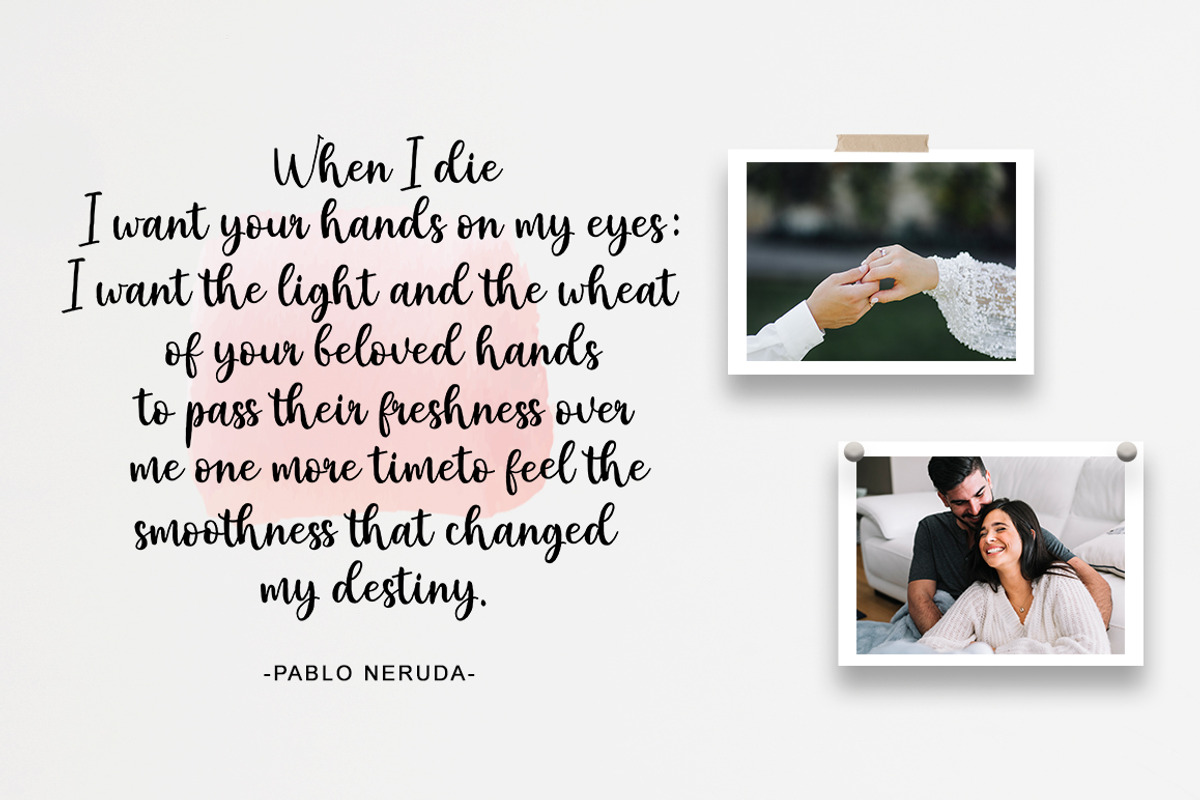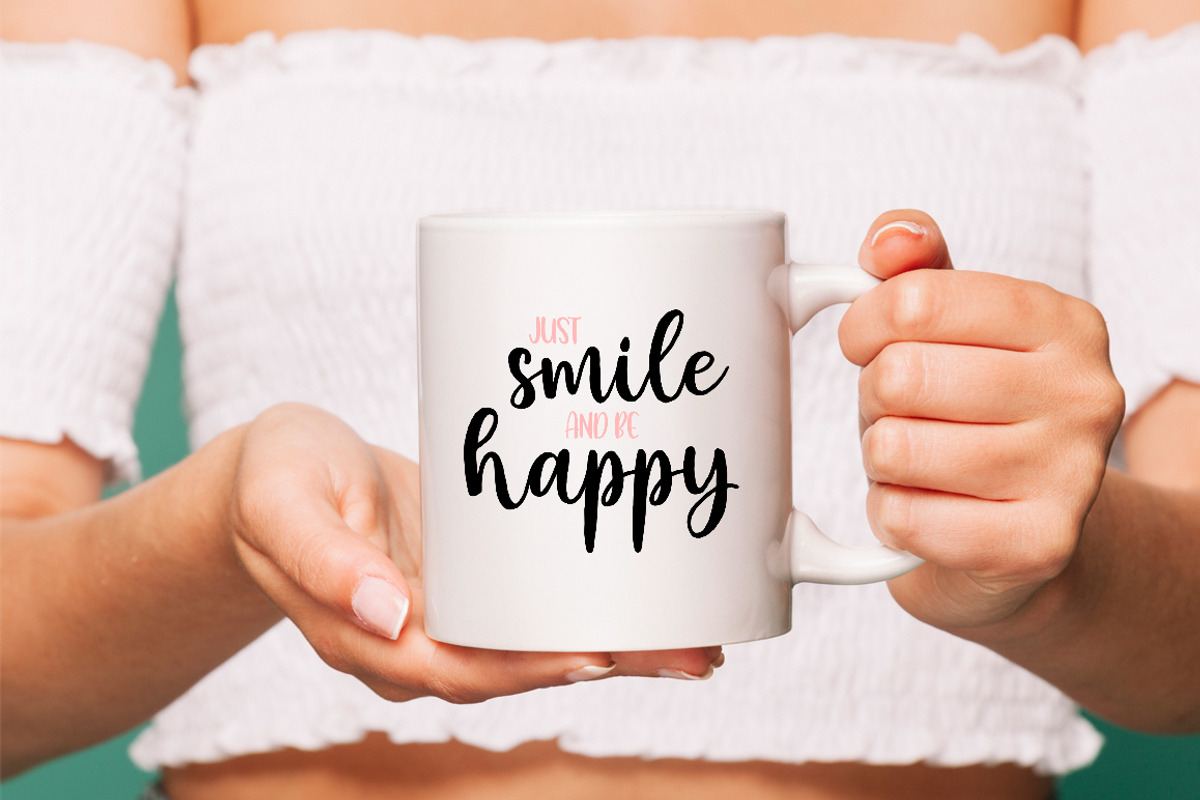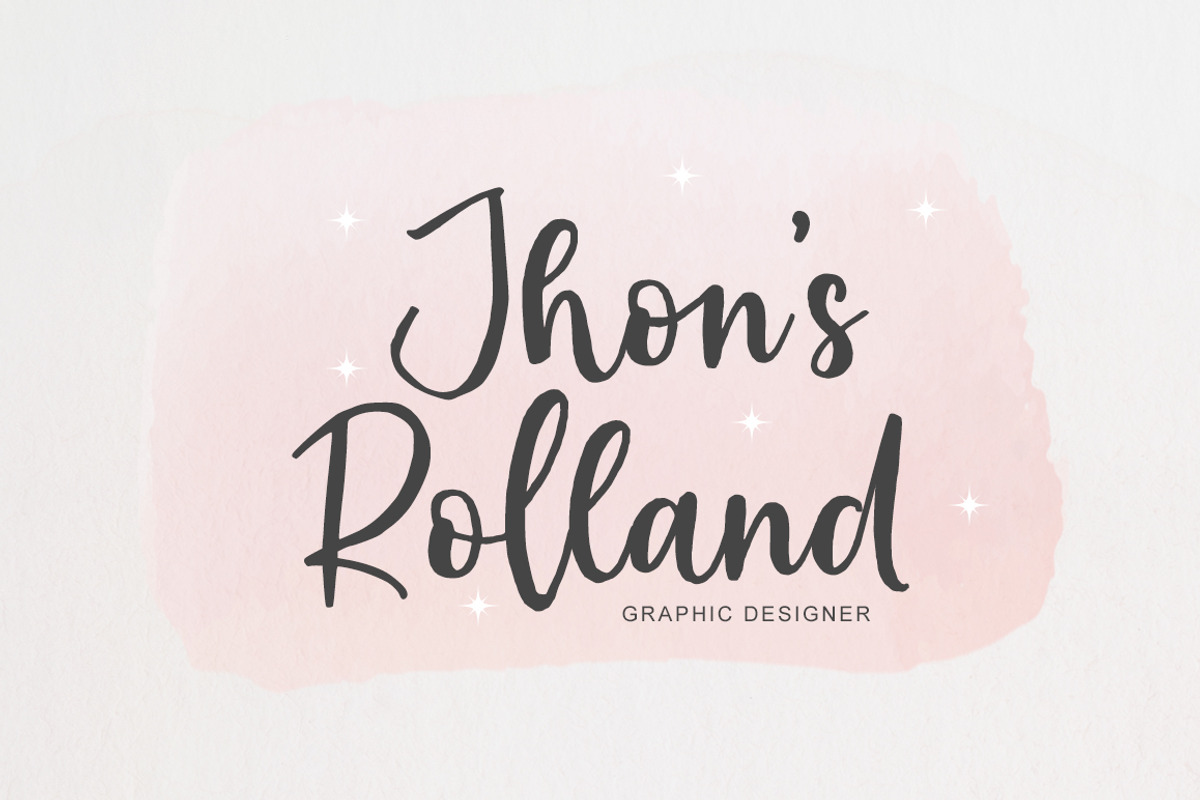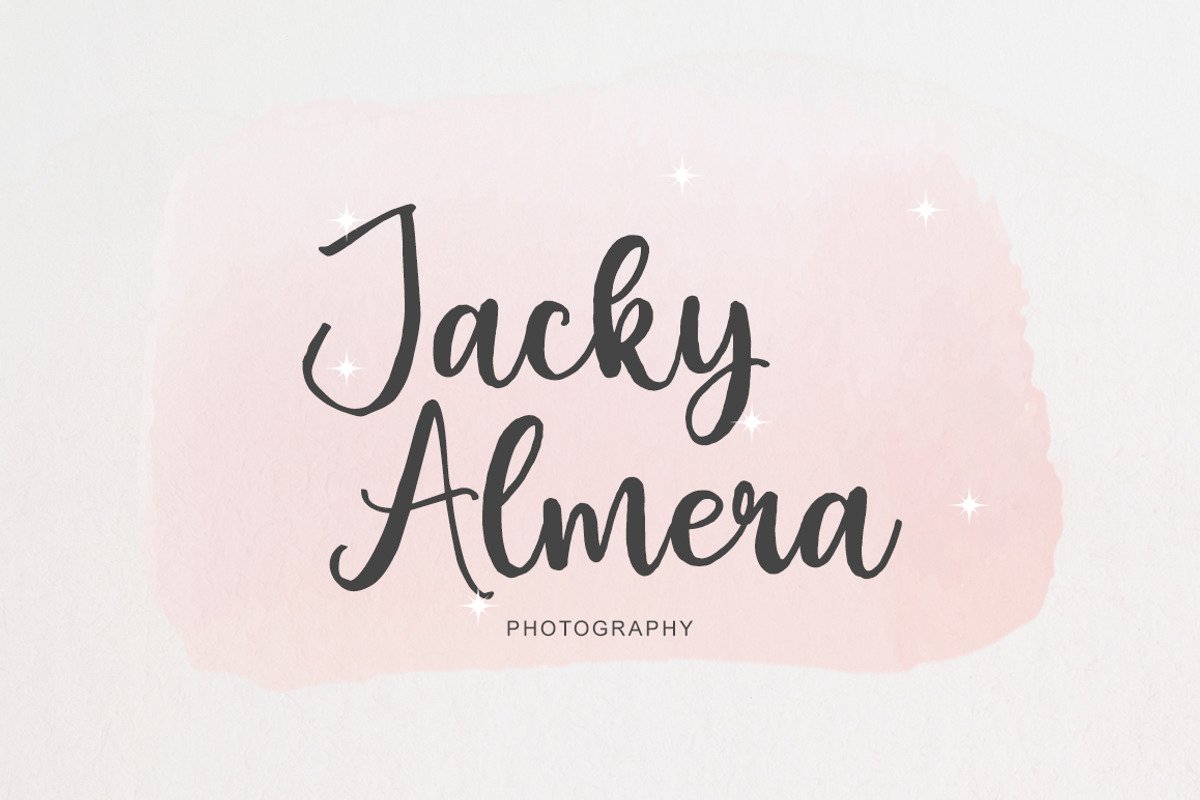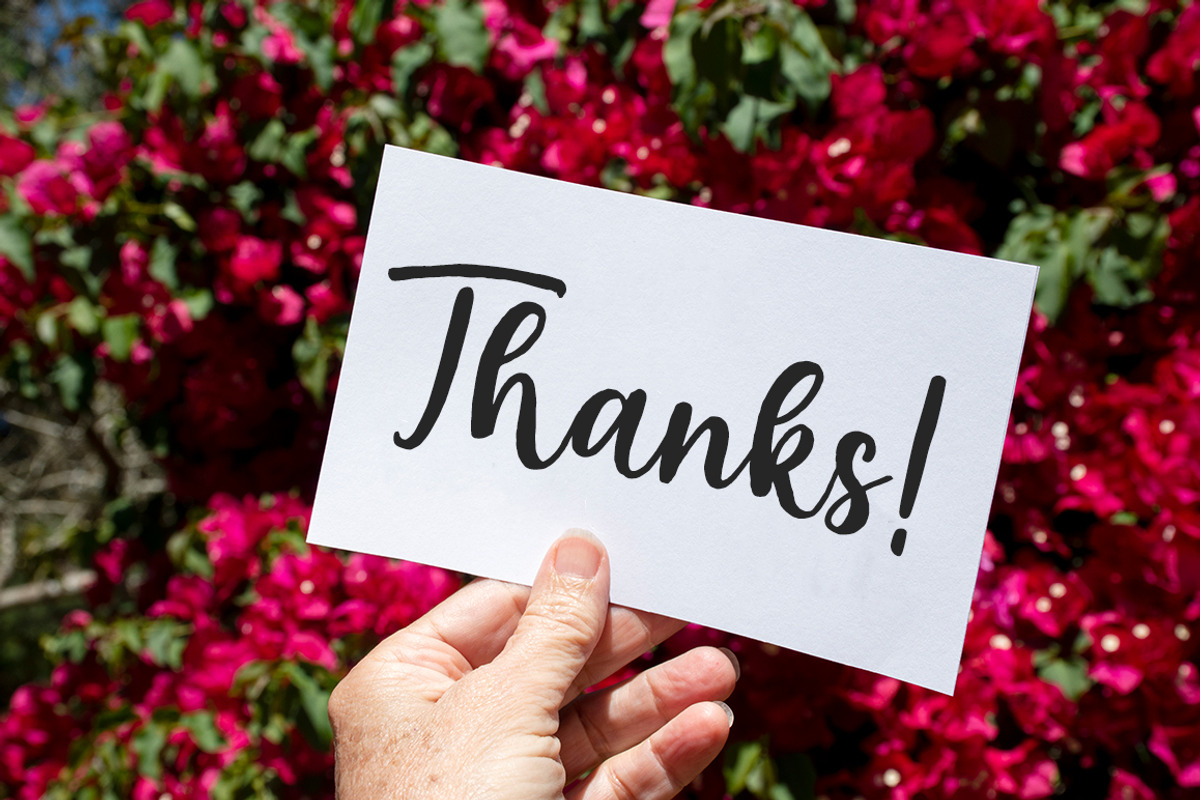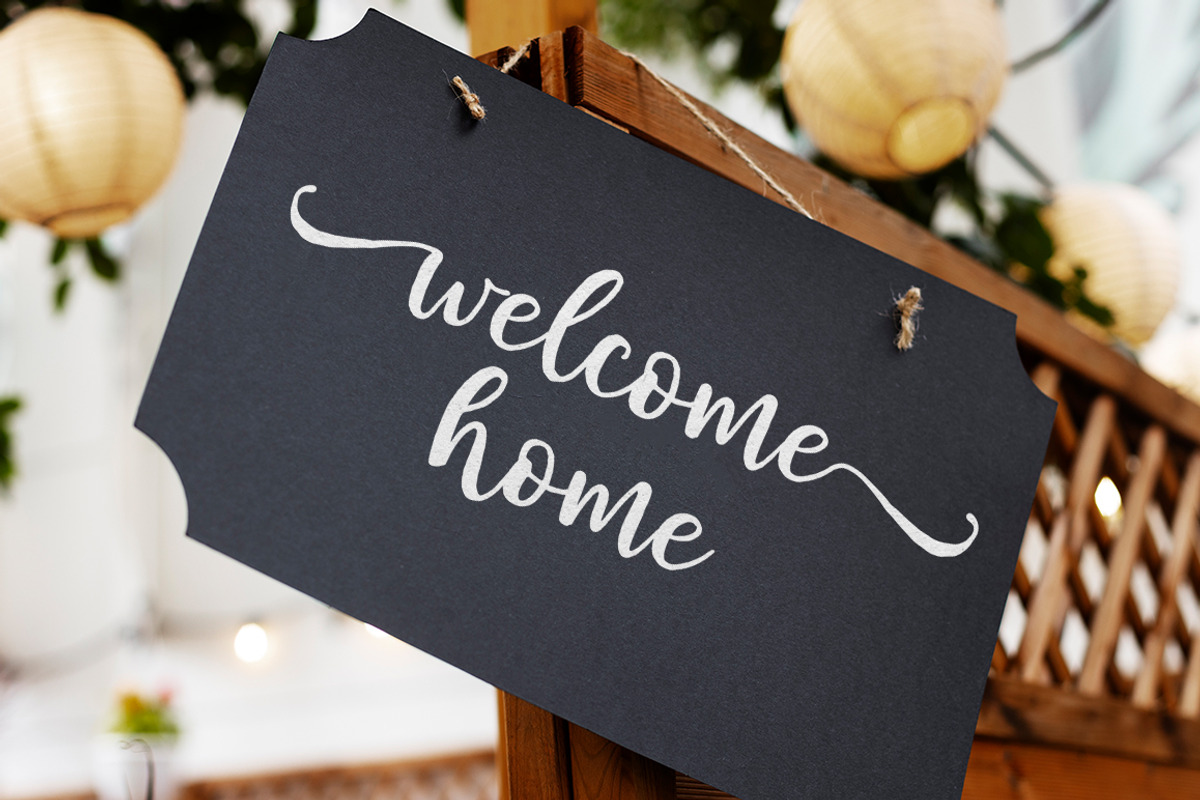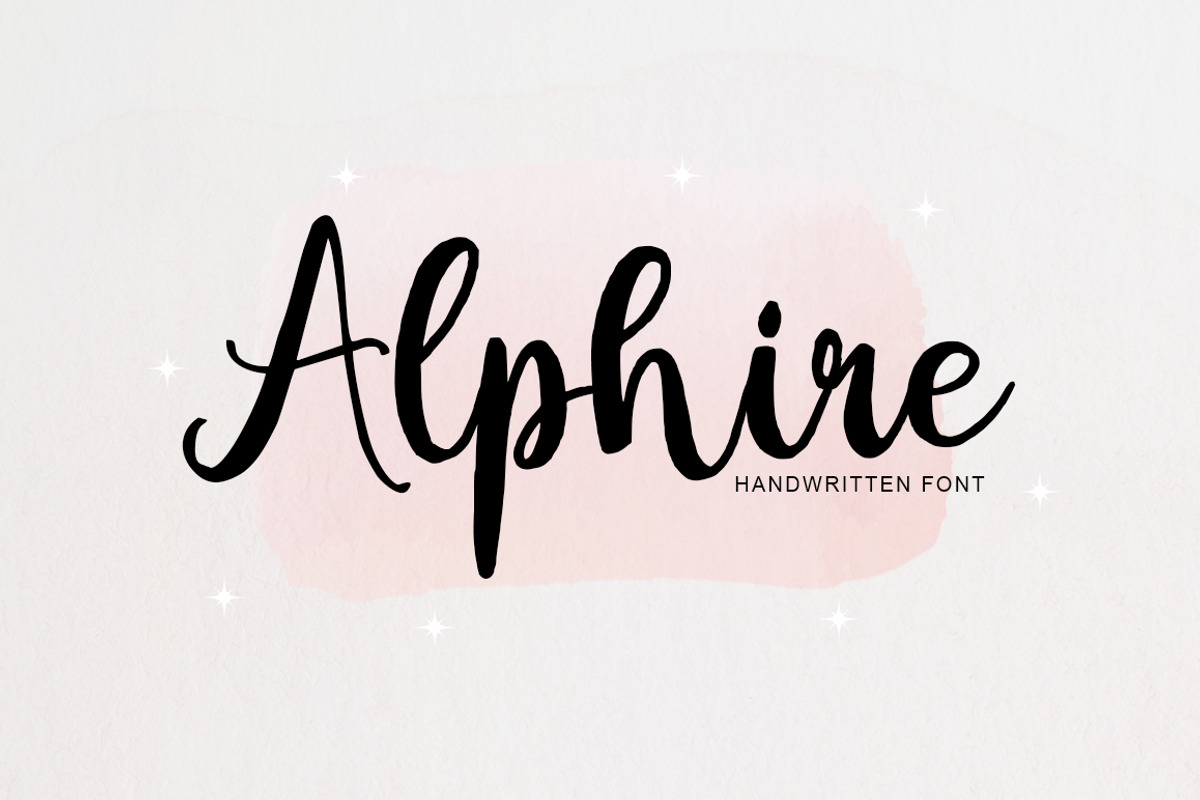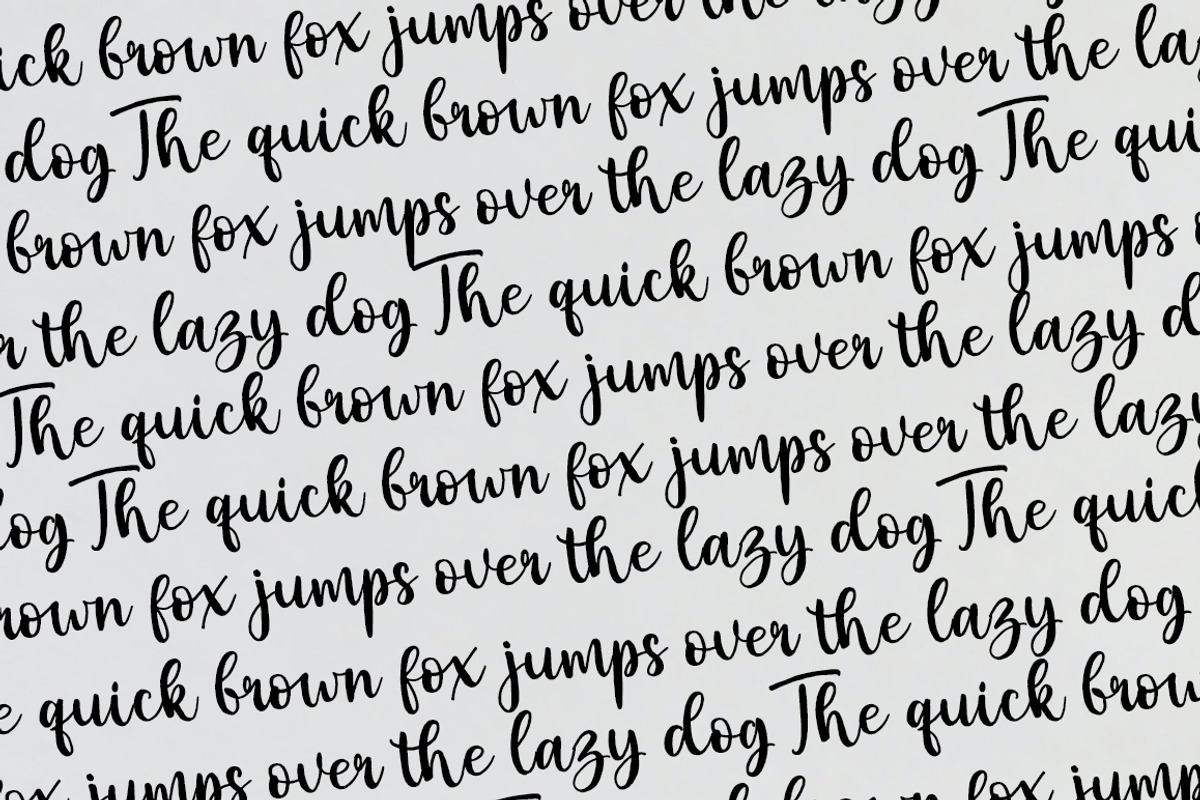
Alphire
Alphire is a trendy handwritten font with a contemporary atmosphere and impeccable form, inspired by timeless classic calligraphy. It will add elegance and class to any of your design projects.